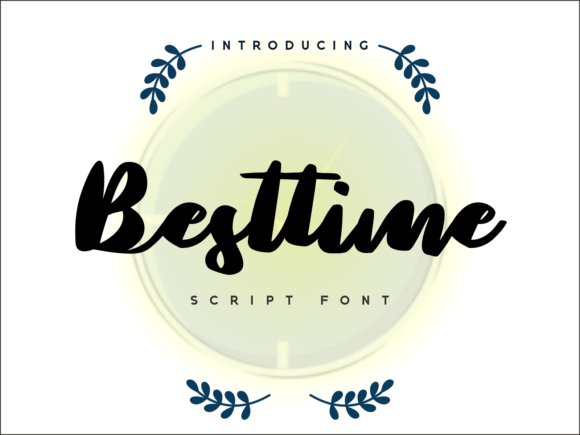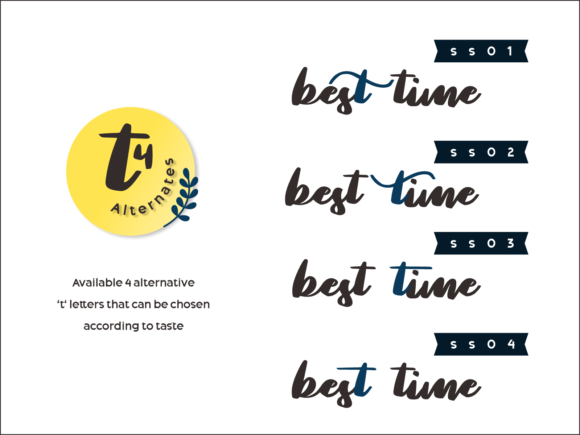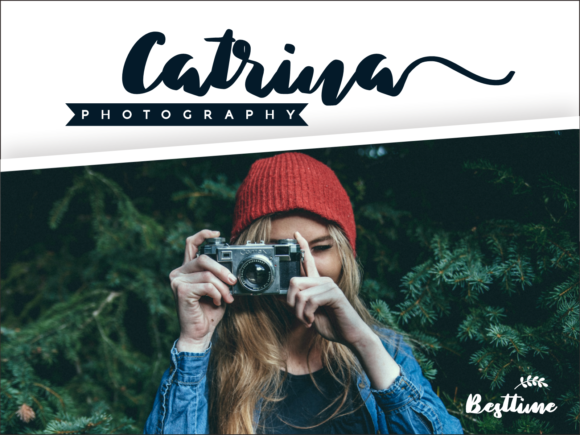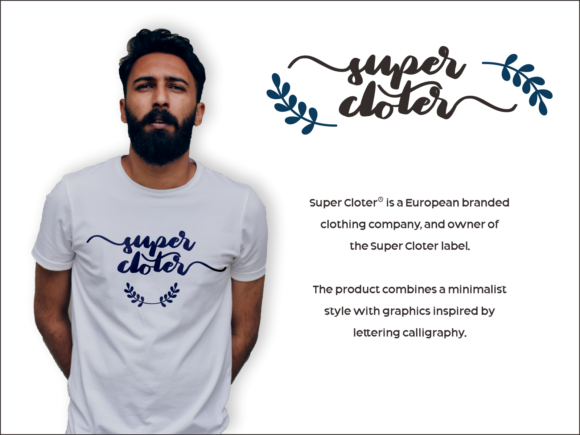
About Best Time Font
Best Time is a chic script font featuring charming, playful characters that seem to dance along the baseline. Add this font to your most creative ideas, and notice how it makes them stand out!